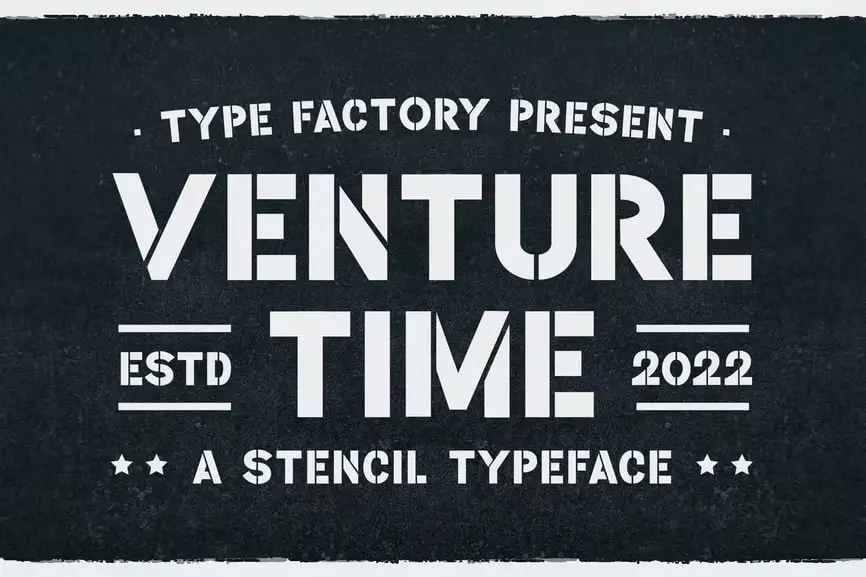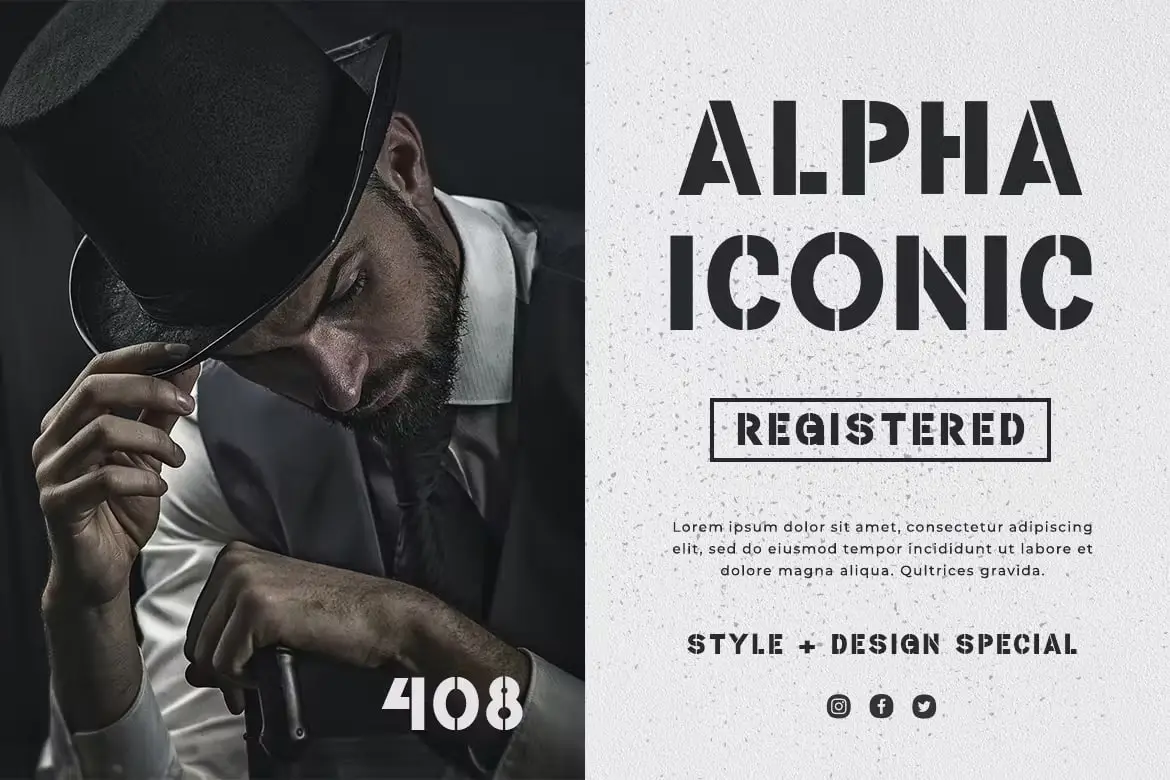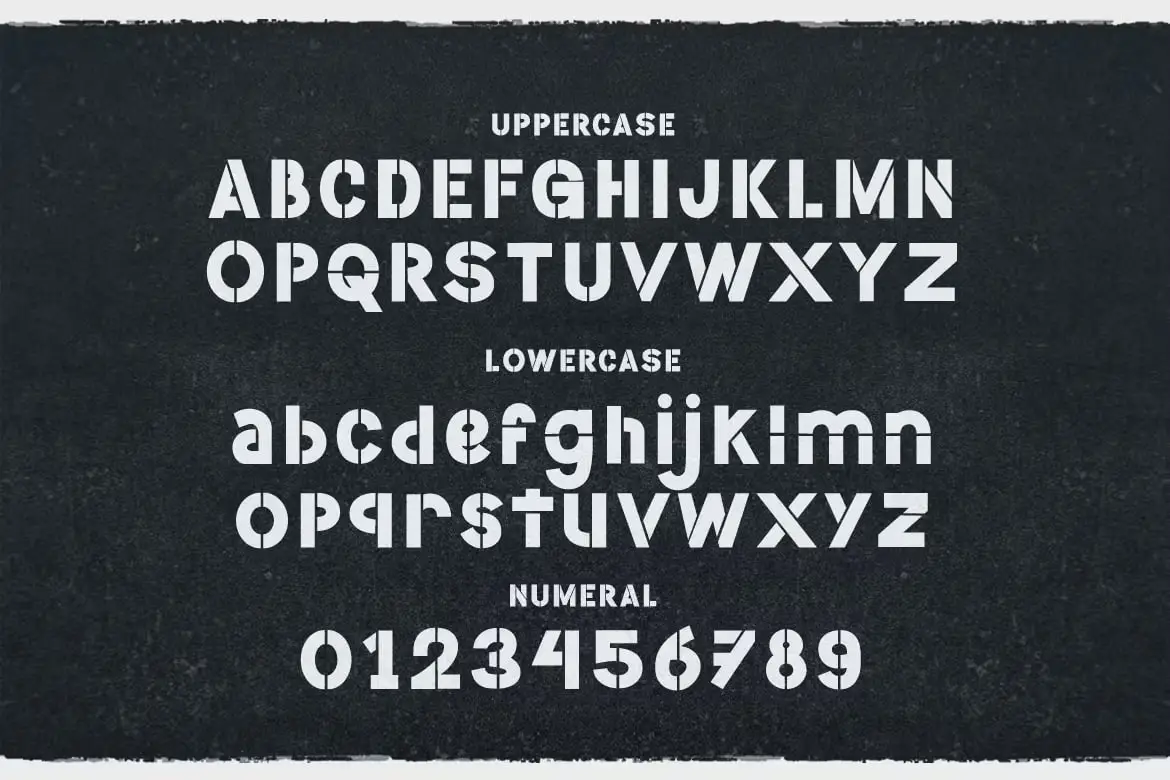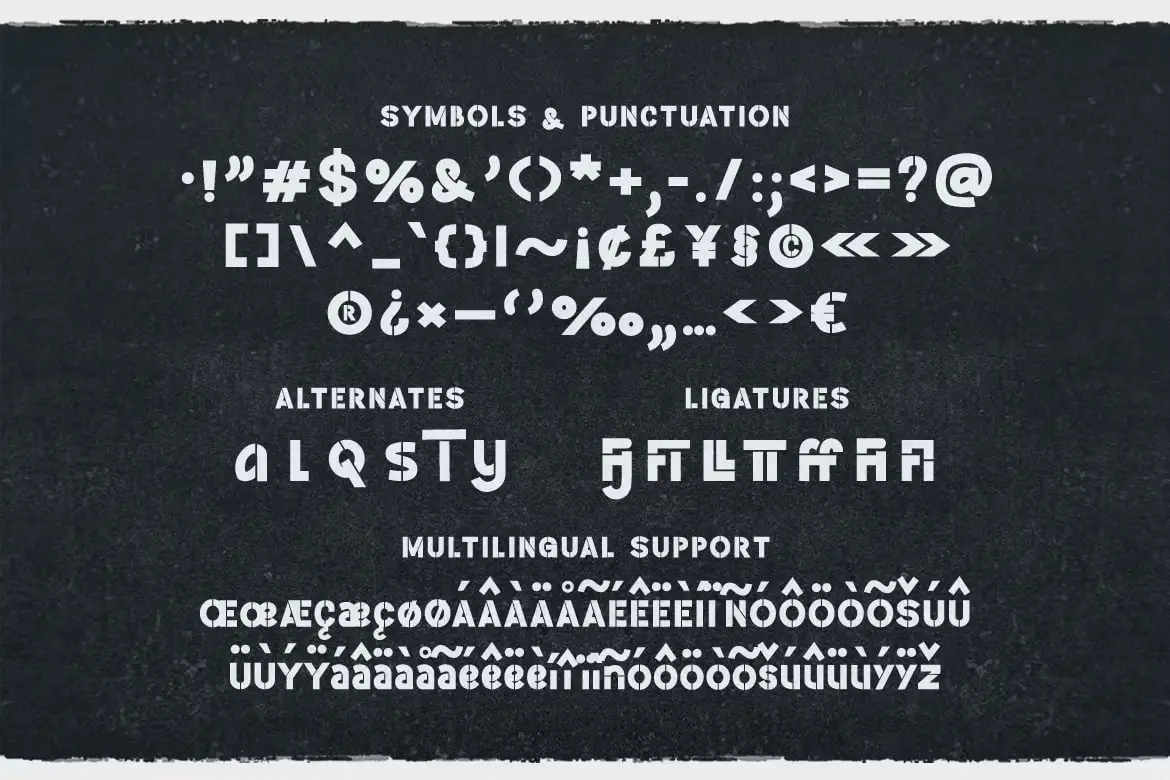
Venture Time-A Stencil Typeface
Introducing the Venture Time-A Stencil Typeface, a unique and versatile font that adds a modern touch to your design projects. This stencil typeface is perfect for creating bold branding, eye-catching logos, and striking headlines.
• Styles: Stencil
• Ideal for branding and logo design.
• Great for print materials such as posters and flyers.
• Perfect for web design and user interfaces.